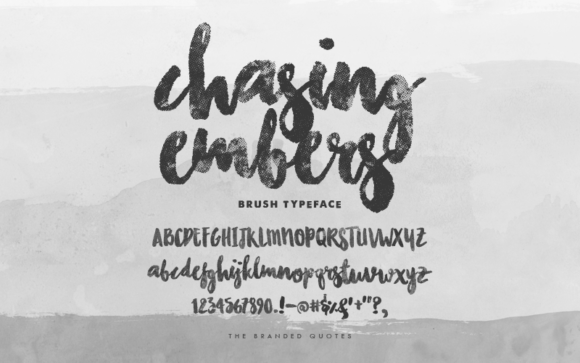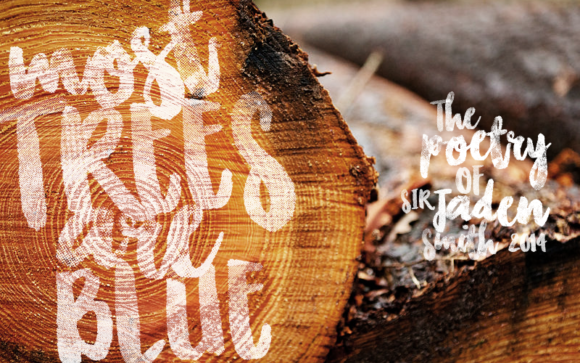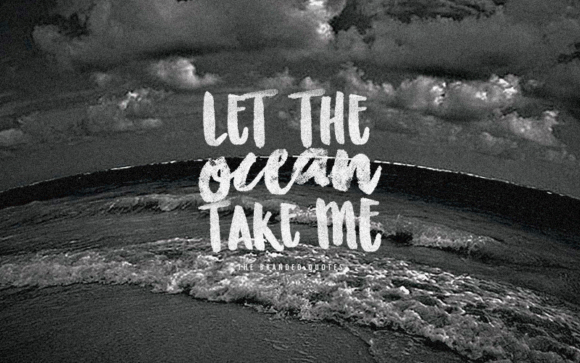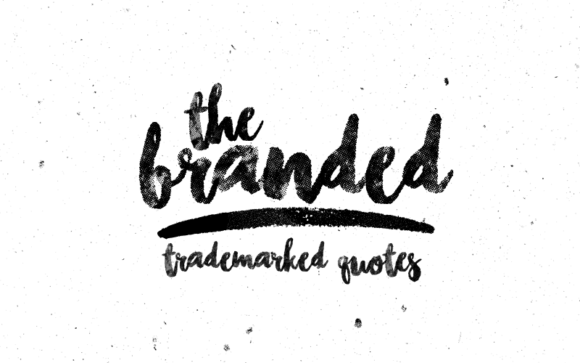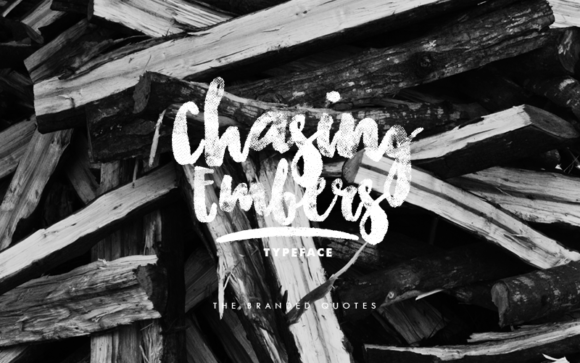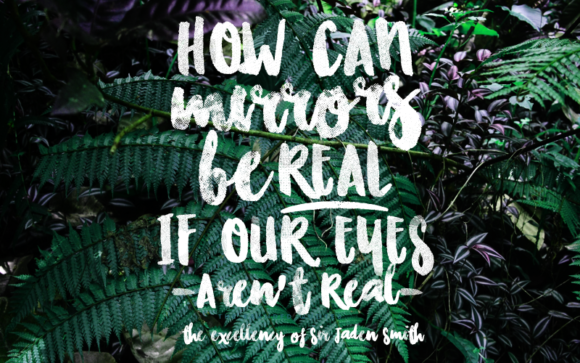
HomeScript FontsChasing Embers Font Script Fonts Chasing Embers Font FacebookXPinterestWhatsApp Chasing Embers Font Poster 2 Chasing Embers Font Poster 3 Chasing Embers Font Poster 4 Chasing Embers Font Poster 5 Chasing Embers Font Poster 6 About Chasing Embers Font Chasing Embers is a stunning script font that delivers an extraordinary font experience. DOWNLOAD ON CREATIVE FABRICAThis font is sold and delivered by Creative Fabrica. Font Canyon may earn a commission if you buy through this link. People also explored Mary-Lou Font Gila Pantomime Monogram Holiland Font Sweet Christmas Font Himalaya Set Font Over the Sunday Font Summertime Script Font Cashman Font 285 0 TagsChasing Embers Font Previous articleEverything Rises FontNext articleAnick Font LEAVE A REPLY Cancel reply Comment: Please enter your comment! Name:* Please enter your name here Email:* You have entered an incorrect email address! Please enter your email address here Website: Save my name, email, and website in this browser for the next time I comment. Personal Use Free Romantic February Personal Use Free Read more about this font Homelands Personal Use Free Read more about this font Cinderella Personal Use Free Read more about this font Gagalin Personal Use Free Read more about this font BLOG Free Fonts Risk: Why Free Fonts Can Be Dangerous for Designers Free Fonts Risk: Why Free Fonts Can Be Dangerous for Designers Using free fonts is a common practice in web and graphic design. However, the... How to Cut Any Font on Cricut: Convert a Font to SVG (Free) Exploring Font Trends Top 10 Handwritten Fonts That Elevate Your Designs